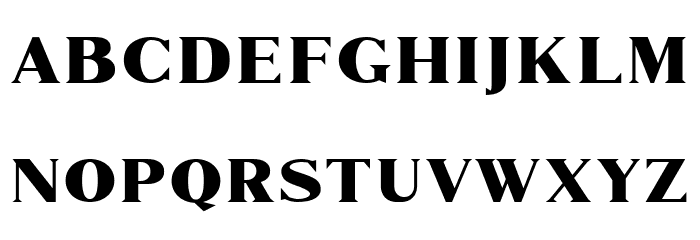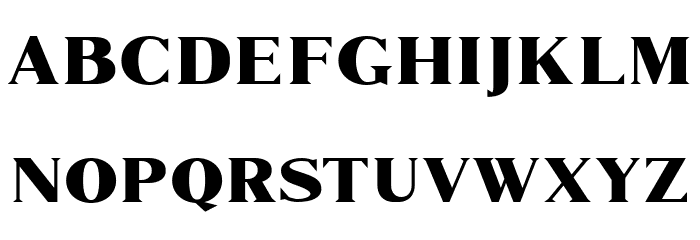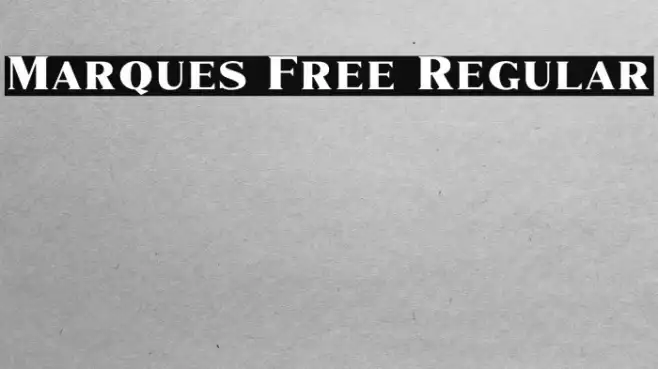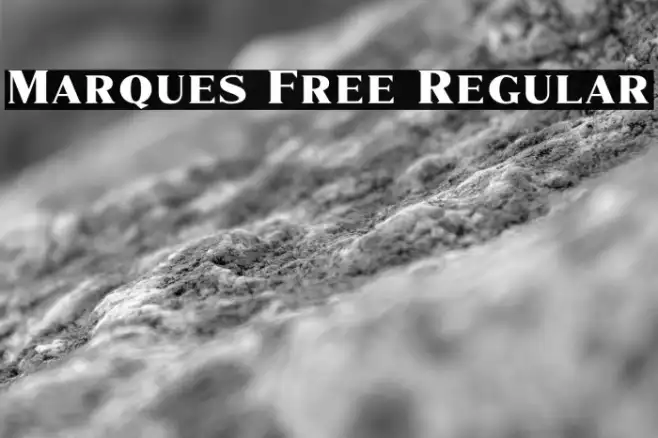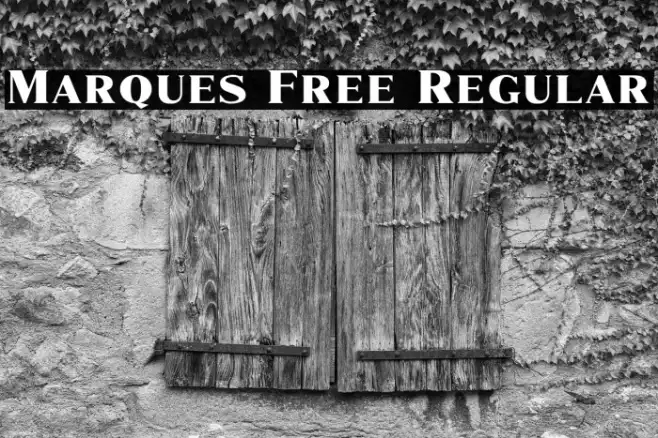
Marques Free Regular Font
This font features bold, strong characters with a classic serif style. The letters are well-defined with thick strokes, giving them a commanding presence. The serifs are pronounced, adding a touch of elegance and tradition. The overall design is balanced, with consistent weight across all characters, making it suitable for impactful headlines and titles. The font's structure is robust, ensuring readability while maintaining a sophisticated appearance. Its timeless design makes it versatile for various applications, from print to digital media.
A bold, classic serif font with strong, elegant characters.
- Proposed Projects: Ideal for book covers, editorial headlines, branding materials, and formal invitations.
- Category: Serif
- Overall Style: Classic